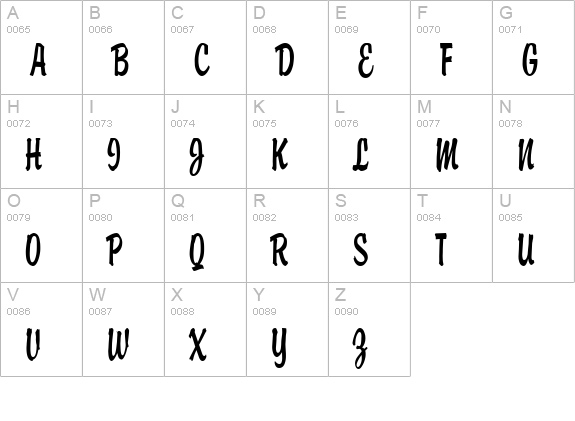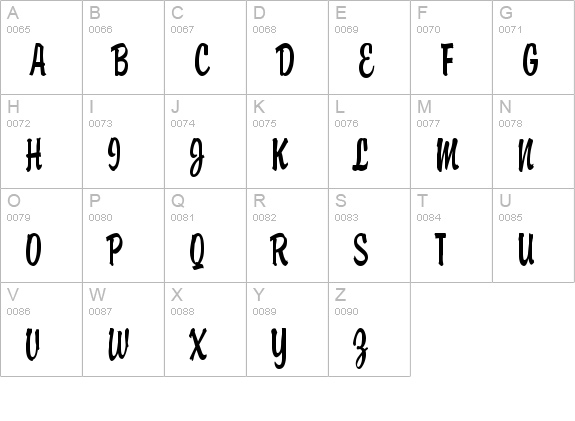
Brisk Normal is the standard, neutral variant in the Brisk typeface family \xE2\x80\x94 well suited to general body text, paragraphs, and standard typographic work.
Brisk Normal font is a versatile and modern typeface that exudes elegance and sophistication. With its clean lines and balanced proportions, this font is perfect for a wide range of design projects, from branding to editorial. Its timeless appeal makes it a popular choice for both print and digital applications. What sets Brisk Normal font apart is its remarkable versatility – it can be used in a variety of contexts, from bold headlines to delicate body text. The font's smooth curves and sharp edges create a harmonious balance that is visually appealing and easy to read. One of the best features of Brisk Normal font is that it is completely free to download at FontsMarket.com. This means that you can access this high-quality typeface without any cost, making it a valuable addition to your font library. Whether you are a designer looking to refresh your typography options or a hobbyist searching for a stylish font for a personal project, Brisk Normal font is a fantastic choice that won't break the bank. Download it today and elevate your designs with this exceptional font.